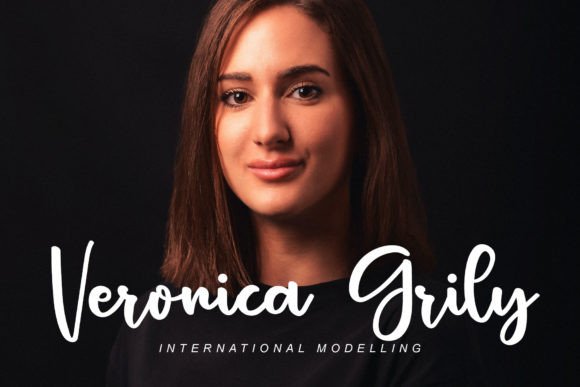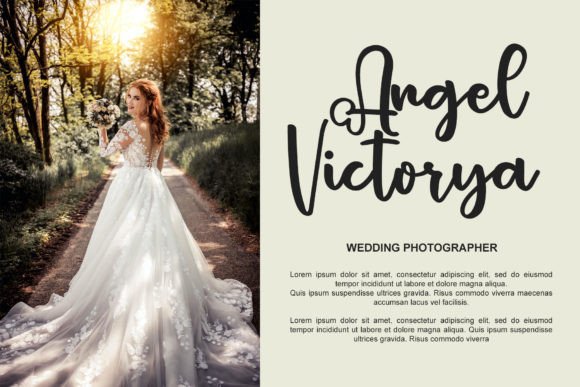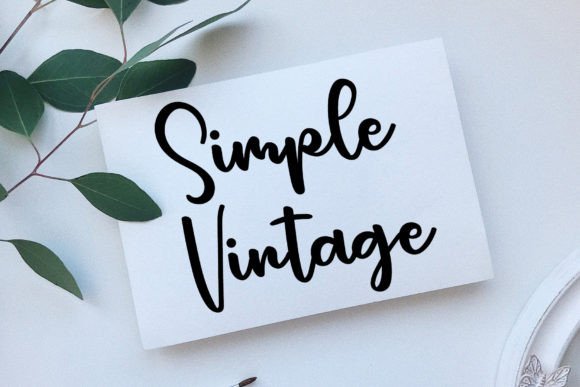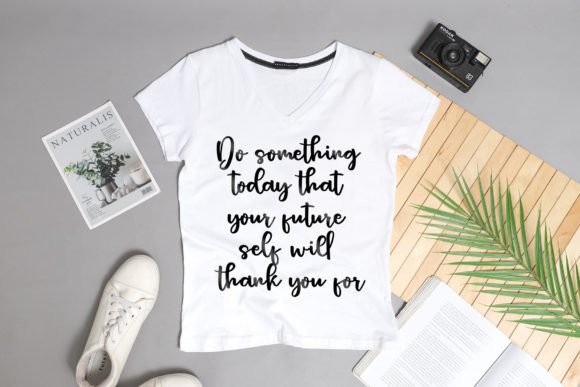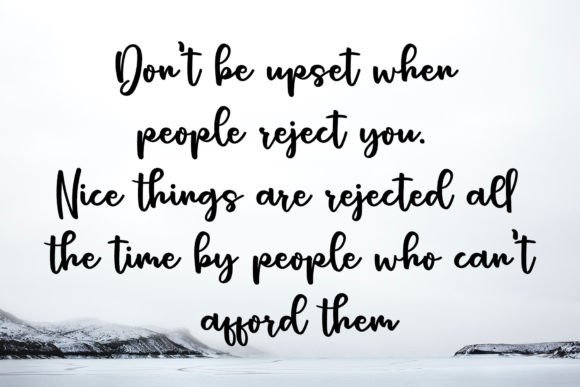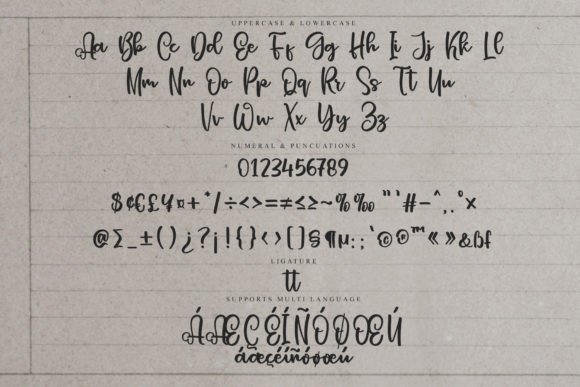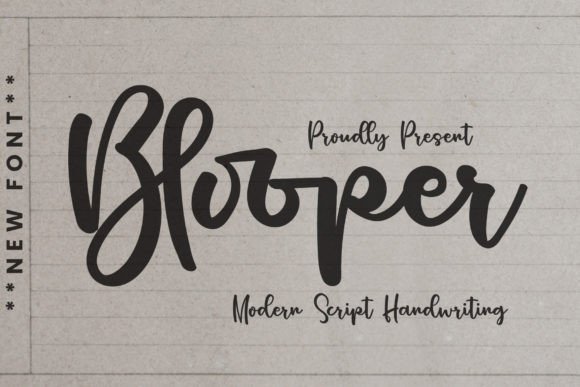
Blooper Font: Elevate Your Designs with Elegance and Whimsy
In the world of design, typography plays a crucial role in conveying the tone and aesthetic of a project. Whether you’re a professional designer or a crafty DIY enthusiast, finding the right font can make all the difference. If you’re on the hunt for a font that exudes elegance and whimsy, look no further than Blooper Font. This magical handwritten font is carefully crafted to add a touch of sophistication to your designs, making it perfect for a wide range of creative projects.
The Charm of Blooper Font
Blooper Font is a beautiful, handwritten script that boasts a unique blend of elegance and playfulness. Its carefully designed letters are adorned with subtle flourishes and curves, giving it a distinctly magical feel. This font is perfect for designers and crafters who want to add a touch of whimsy to their work, whether it’s for a branding project, social media graphics, or DIY crafts.
Perfect for Instagram and Social Media
In today’s digital age, social media platforms like Instagram have become essential channels for designers and crafters to showcase their work. With Blooper Font, you can create stunning graphics that are sure to grab the attention of your followers. Whether you’re designing inspirational quotes, promotional graphics, or simply want to add a personal touch to your Instagram stories, this font is an excellent choice. Its elegant and cursive script makes it perfect for creating engaging and shareable content.
Endless DIY Possibilities
Blooper Font is not just limited to digital designs; it’s also perfect for DIY projects. Whether you’re creating handmade cards, crafting personalized gifts, or designing custom wall art, this font can help you add a touch of elegance to your creations. Imagine using Blooper Font to create beautiful calligraphy scripts for your journaling, scrapbooking, or mixed media projects. The possibilities are endless, and the results are sure to be stunning.
Key Features of Blooper Font
• Magical Handwritten Script: Blooper Font boasts a unique, handwritten script that’s both elegant and whimsical.
• Elegant and Playful: This font strikes the perfect balance between sophistication and playfulness, making it suitable for a wide range of design projects.
• Perfect for Instagram and Social Media: Use Blooper Font to create stunning graphics that will elevate your social media presence.
• DIY Friendly: This font is perfect for crafters and DIY enthusiasts who want to add a touch of elegance to their handmade projects.
Tips for Using Blooper Font
To get the most out of Blooper Font, here are a few tips to keep in mind:
• Experiment with Colors: Blooper Font looks stunning in a variety of colors, so don’t be afraid to experiment and find the perfect hue for your design.
• Mix and Match: Combine Blooper Font with other fonts or graphics to create unique and eye-catching designs.
• Pay Attention to Spacing: Make sure to adjust the spacing between letters to ensure that your text is easy to read and visually appealing.
Blooper Font is a versatile and elegant handwritten font that’s perfect for designers and crafters who want to add a touch of whimsy to their work. With its magical script and endless possibilities, this font is sure to become a staple in your design toolkit. Whether you’re creating stunning Instagram graphics or beautiful DIY projects, Blooper Font is the perfect choice. So why wait? Download Blooper Font today and start elevating your designs with elegance and whimsy!